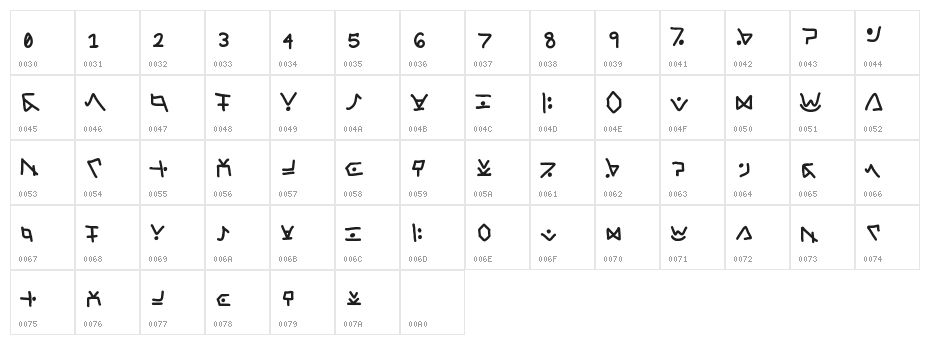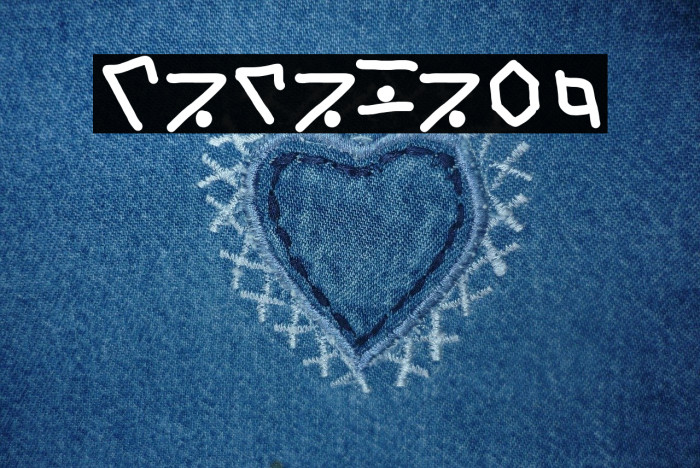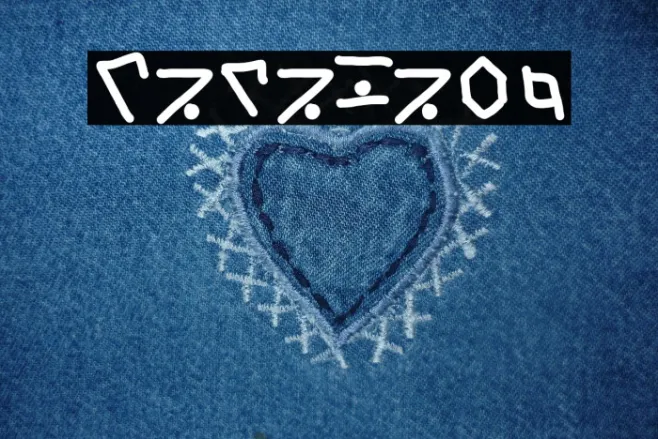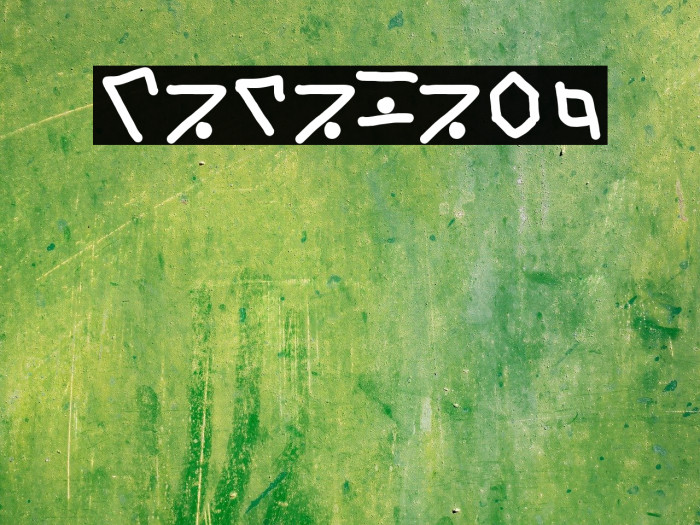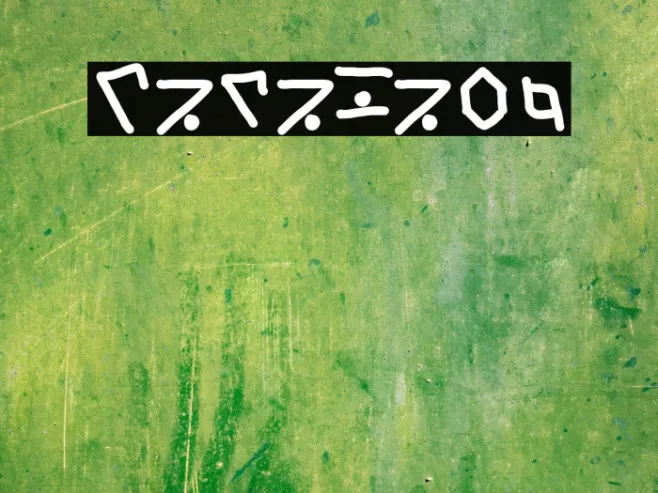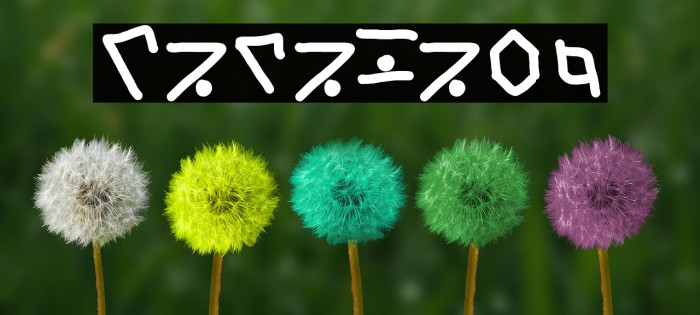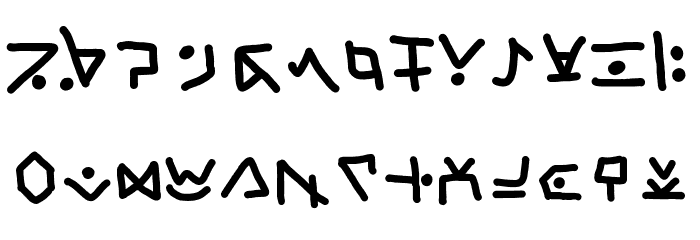
TataLang Font
TataLang Description
This image features a set of symbols that resemble a constructed script or fictional language rather than a traditional font. The characters are unique and stylized, with a consistent thickness and a hand-drawn appearance. Each symbol is distinct, with angular shapes and occasional curves, creating an impression of an ancient or alien script. The numbers are more recognizable, maintaining a similar hand-drawn style. Overall, the design is cohesive and visually intriguing, suitable for creative projects that require a touch of mystery or fantasy.
| Use Case | Logos, Creative projects, Fantasy settings |
| Proposed Projects | Ideal for fantasy games, sci-fi movies, or creative writing projects needing a unique script. |